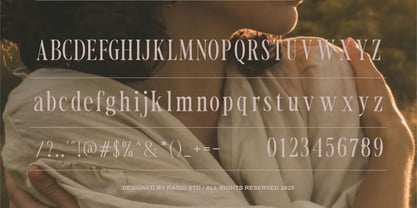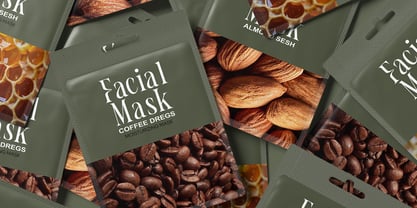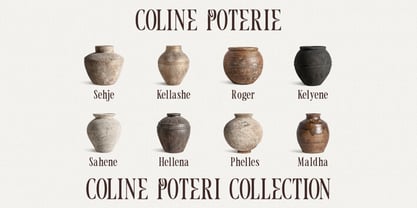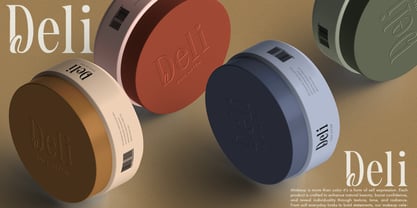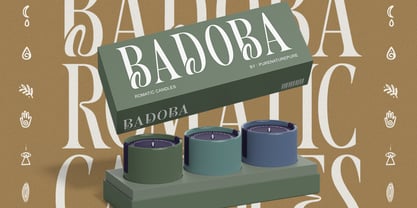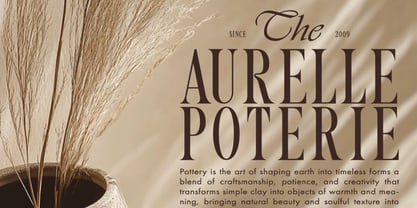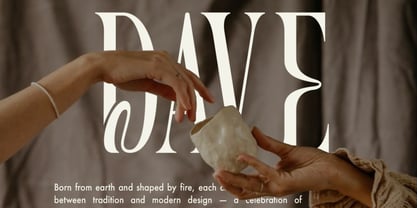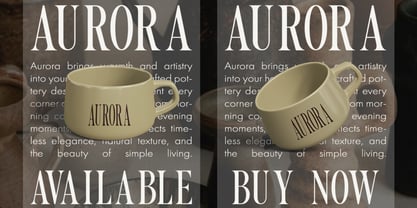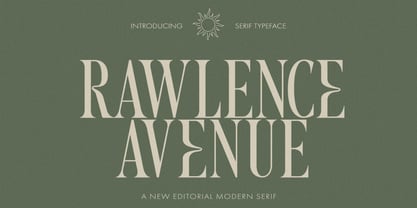
Rawlence Avenue
by Rasio Studio
The Rawlence Avenue Font Family was designed by Fajar Indra and published by Rasio Studio. Rawlence Avenue contains 1 styles. More about this family
Rawlence Avenue is a refined editorial serif typeface that blends modern sophistication with classic design details. Its tall proportions, elegant contrast, and sculpted serifs create a distinctive, high-end look suitable for both print and digital compositions. Designed for designers and editors seeking timeless refinement, Rawlence Avenue brings a confident yet graceful tone to magazine headlines, branding, and art direction. Featuring uppercase, lowercase, numerals, and punctuation, this typeface offers flexibility for expressive and luxurious typography projects.
Designers: Fajar Indra
Foundry: Rasio Studio